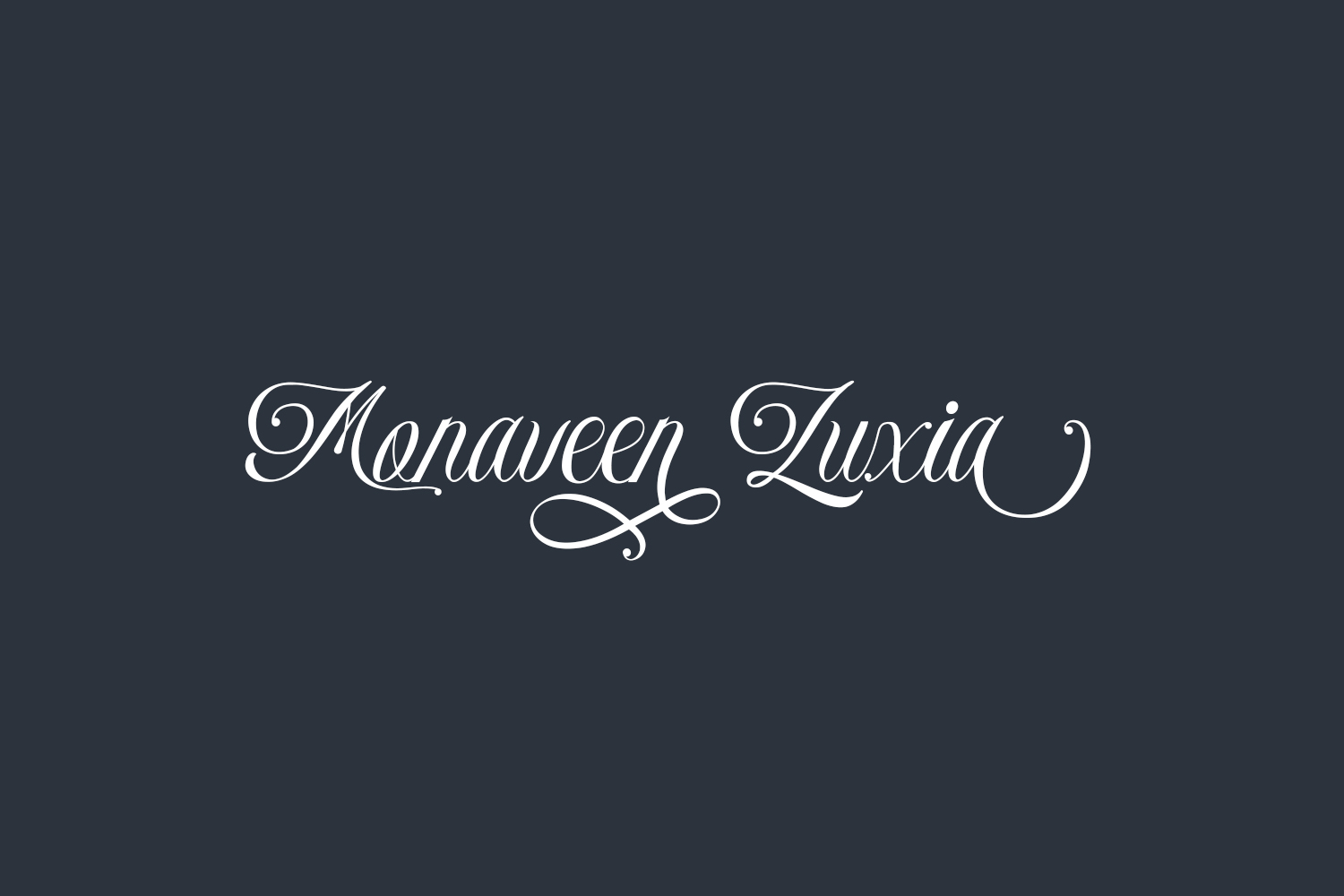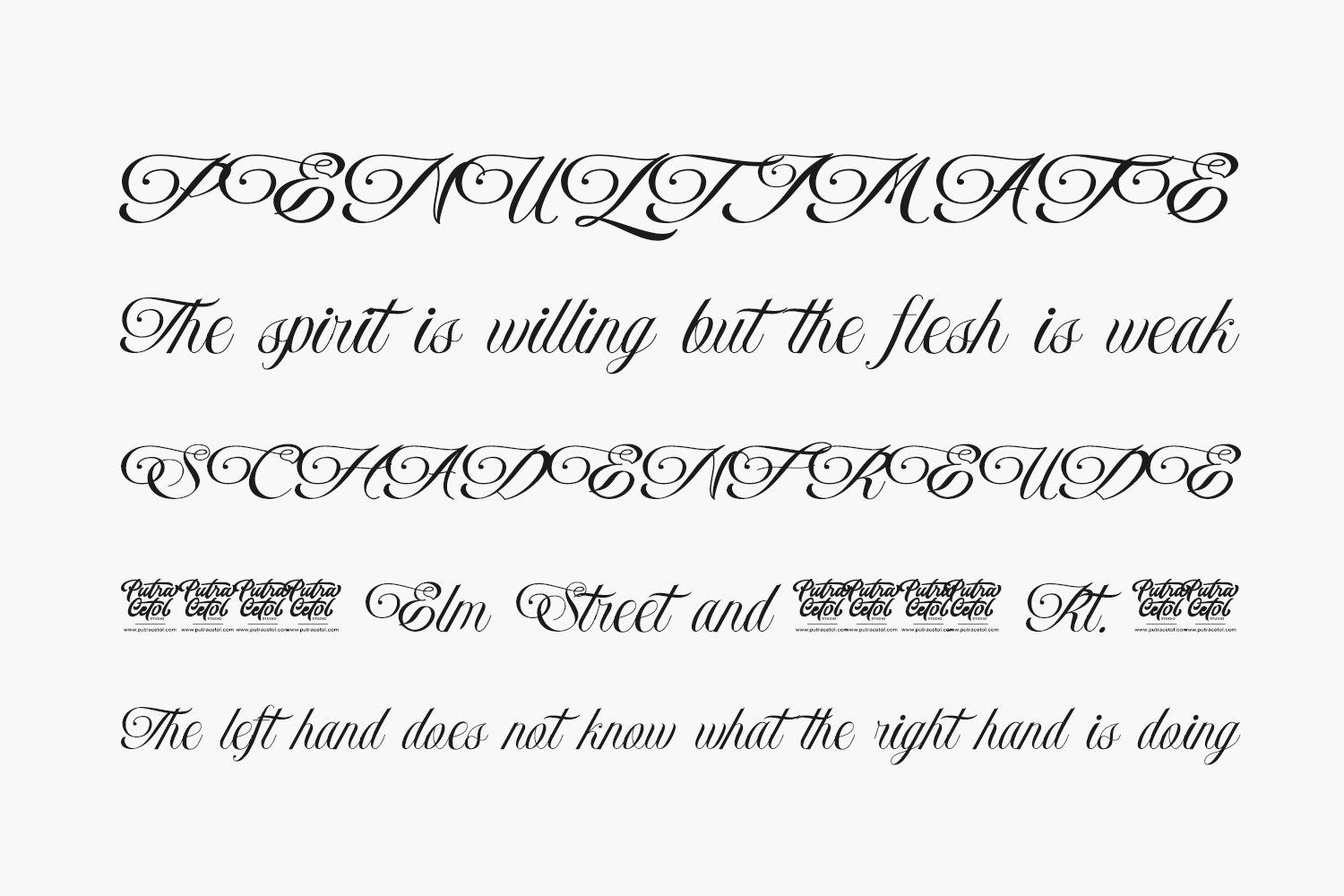
Monaveen Luxia Free Font is a delicate, elegant, and flowing handwritten font. It has beautiful and well balanced characters and as a result, it matches a wide pool of designs. Monaveen Luxia Free Font was designed by PutraCetol Studio is a demo and free for personal use only. Please purchase the full version for commercial use.